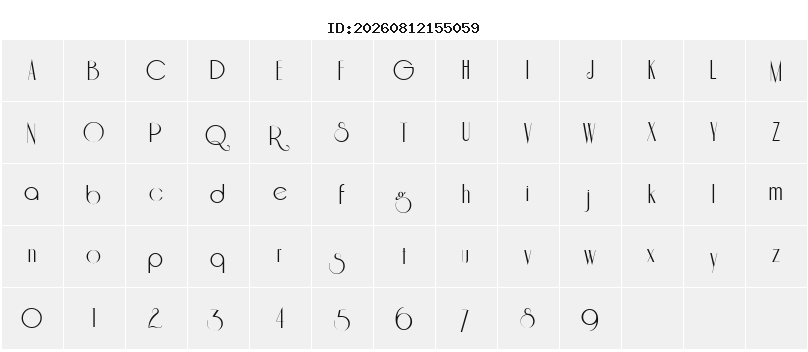
• Font Name: Riesling
• Full Font Name: Riesling
About Riesling.ttf
Riesling.ttf is a modern, elegant sans-serif font designed for ultimate readability and visual harmony. Perfect for branding, headlines, web design, and print materials.